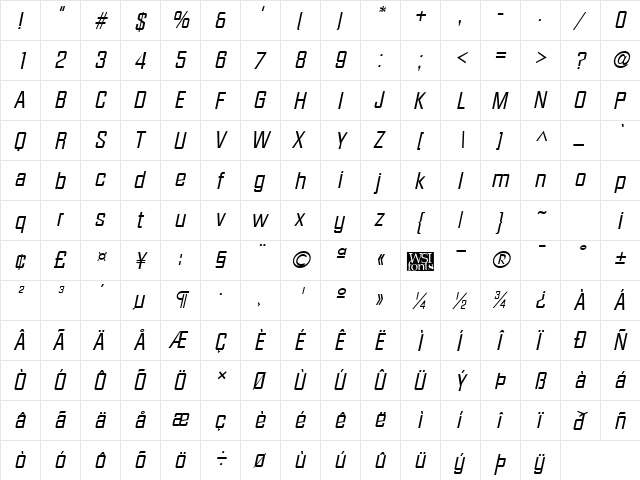
Facet Italic
Design Context for Facet Typeface
Facet is a composed and adaptable typeface that performs quietly and consistently across a wide range of design contexts. The slanted form adds forward momentum and visual energy.
Pro Tip: Try Facet for annotation and caption copy alongside an upright companion — the contrast in angle creates a dynamic but ordered typographic system.